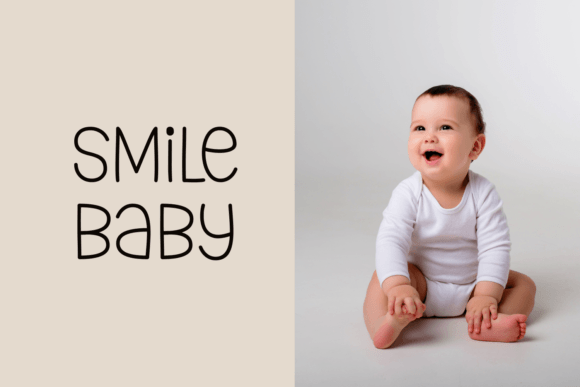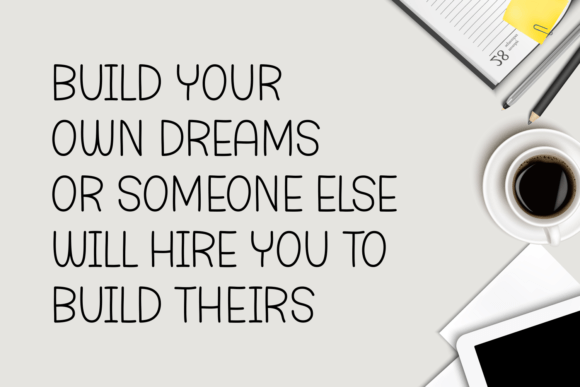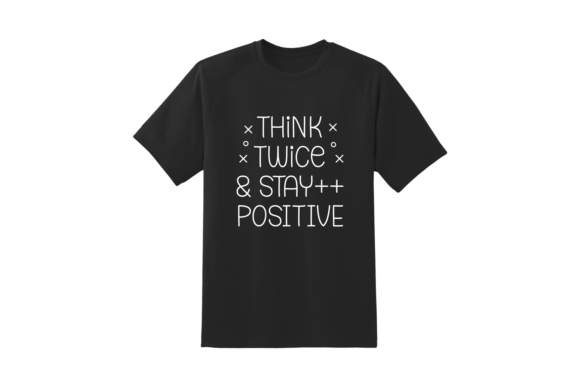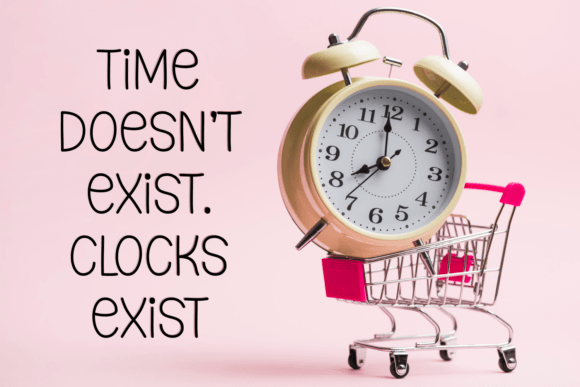
Introduction to Laurel Story Font Font
Fonts play a crucial role in design, and the Laurel Story Font font is a typeface that brings both character and versatility to any project. Whether you’re working on a branding project, a website, or a print design, the Laurel Story Font font offers a unique style that can elevate your work.
Laurel Story is a playful and stylish font with a youthful spirit.
Laurel Story is a playful and stylish font with a youthful spirit. Is suitable for both professional-looking projects such as branding designs, labels, websites, and business cards as well as casual d
Key Features of Laurel Story Font Font
Why Choose Laurel Story Font Font?
The Laurel Story Font font is more than just a typeface – it’s a design tool that helps you communicate your message with style and clarity. Its unique character set and versatile design make it suitable for a wide range of applications, from elegant invitations to bold headlines.
With its carefully crafted letterforms and balanced proportions, the Laurel Story Font font ensures readability and visual appeal across all mediums.
What makes Laurel Story Font font special?
The Laurel Story Font font stands out with its unique design, exceptional readability, and versatility across various design applications.